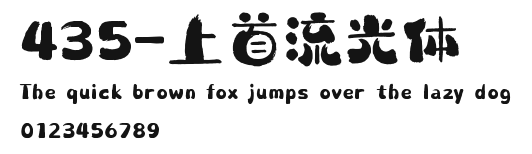
435-上首流光体 Preview
• Font Name: 435-上首流光体
• Full Font Name: 435-上首流光体
• PostScript Name: 435-SSLiuGuangTi
• Character Count: 7603
• Manufacturer: 上首造字
About 435-上首流光体.ttf
435-上首流光体.ttf is a modern, elegant sans-serif font designed for ultimate readability and visual harmony. Perfect for branding, headlines, web design, and print materials.